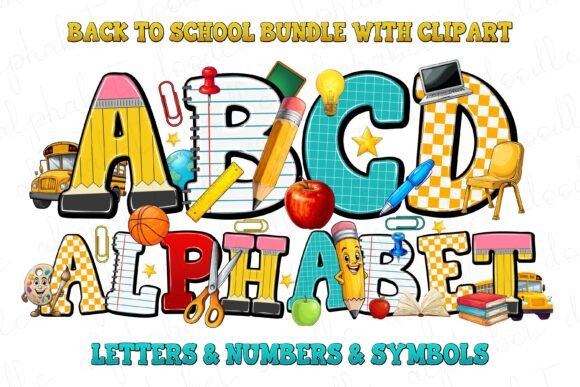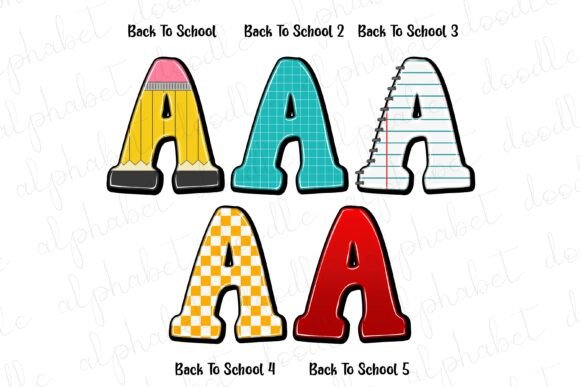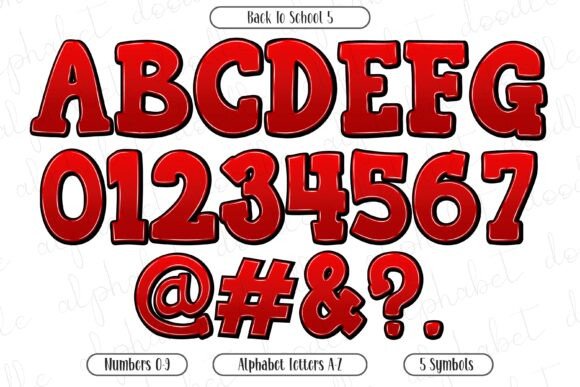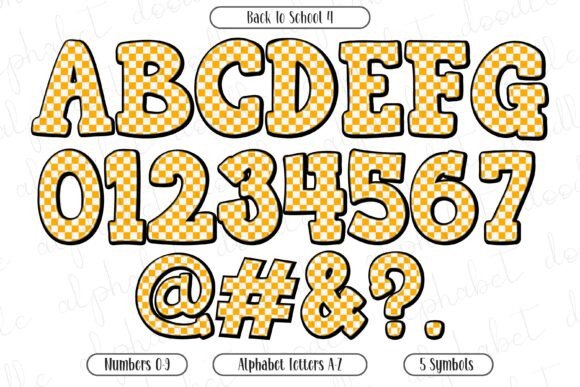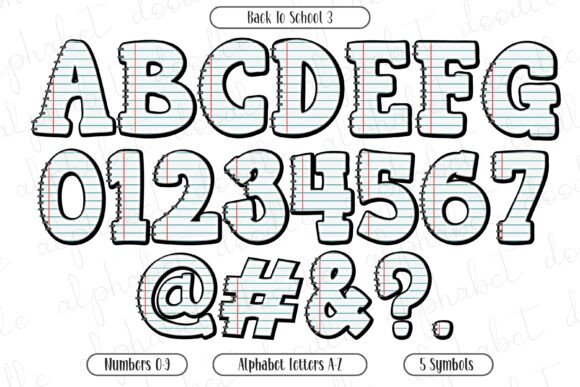
Say hello to ‘Back to School’ – a bold, playful typeface bursting with personality and charm. Designed to captivate at first glance, its vibrant style and whimsical details make it perfect for kids' projects, educational themes, and fun-filled designs. The 'School Set' brings a delightful mix of energy and creativity, turning ordinary layouts into eye-catching masterpieces. Whether you're crafting classroom materials, posters, or playful branding, ‘Back to School’ adds a splash of joy and imagination to every creation."